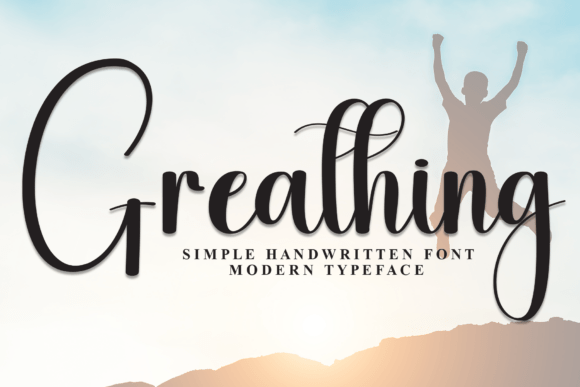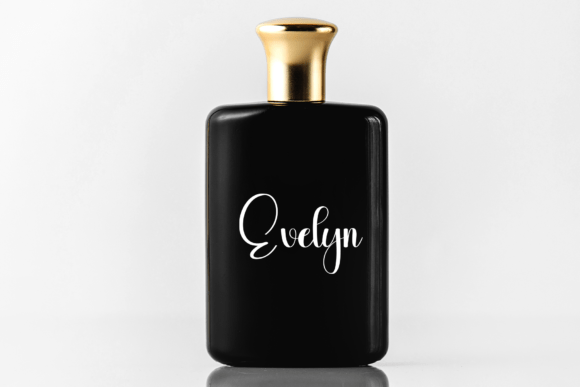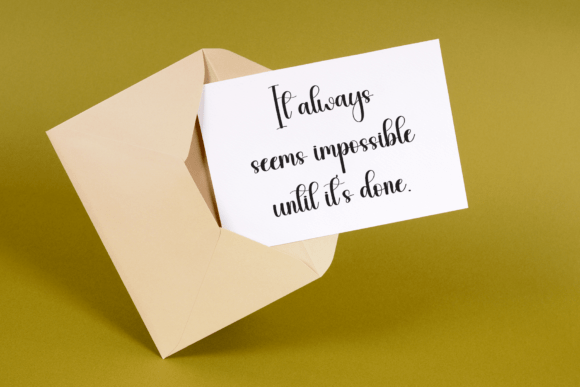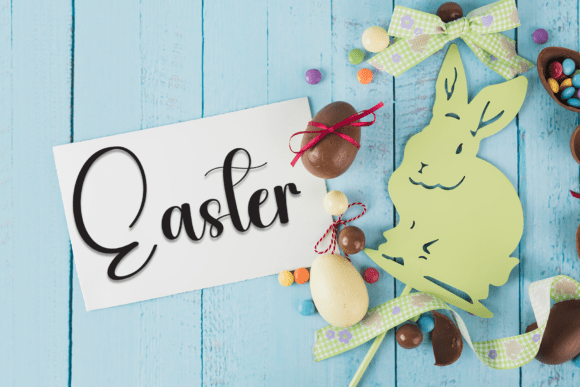
Greathing Font: Elegant Handwritten Script for Branding & Invitations
About the Greathing Font
Make a bold statement with Greathing Font, a powerful and memorable font. Greathing is a stylish handwritten script font that exudes elegance and charm with its fluid, graceful strokes. Perfect for branding, invitations, and stationery, it adds a personal and sophisticated touch. The smooth curves and natural flow create a timeless, refined look for any design.
Greathing’s elegant, flowing forms make it ideal for projects requiring a touch of sophistication: wedding invitations, luxury branding, and high-end product packaging benefit most from its refined aesthetic. Avoid using it for large blocks of body text or UI elements; its delicate nature makes extended reading difficult.
Pairing Greathing with a clean sans-serif like Lato for body copy creates a balanced contrast of formal script and modern readability. Alternatively, a classic serif font such as Garamond can complement its timeless quality, while a geometric sans-serif like Futura provides a striking modern counterpoint.
Its overall personality is best described as sophisticated and refined, lending itself to brands that project luxury, exclusivity, or handcrafted quality. Avoid using it for projects requiring a bold, playful, or overtly modern feel.
Greathing Font Usage Examples
Greathing Font Example